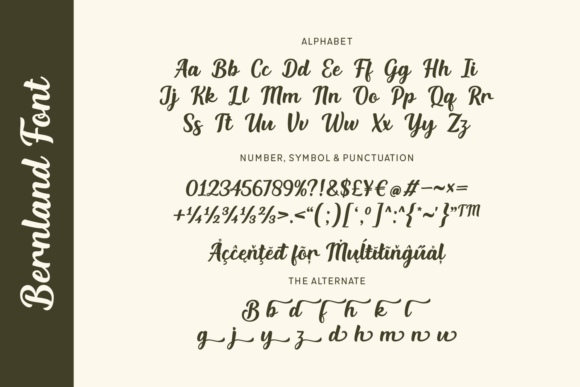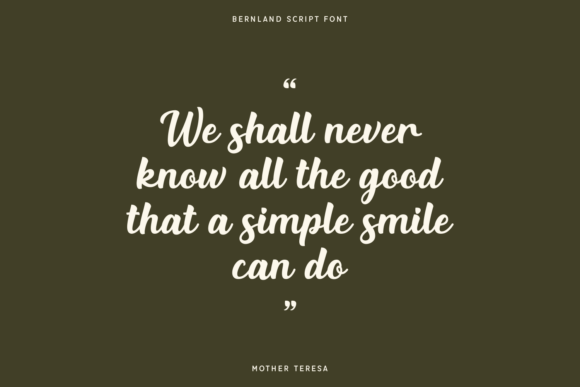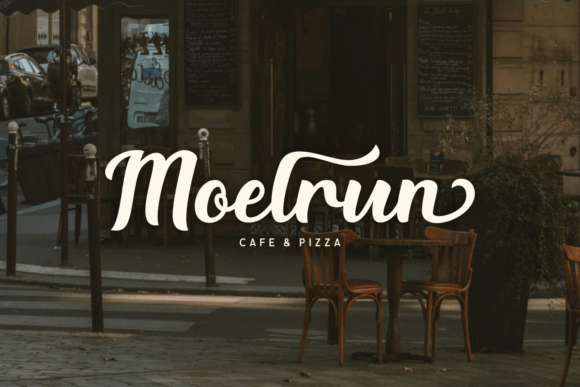
Bernland Font: Elevate Your Designs with Modern Elegance
In the world of typography, fonts play a crucial role in defining the aesthetic and tone of a design project. For designers and crafters seeking a modern, sophisticated look, the Bernland font stands out as an exceptional choice. This modern script font, characterized by its bold curves and smooth swashes, offers a clean yet elegant appearance that can instantly elevate your projects.
The Essence of Bernland Font
Bernland is not just another script font; it’s a versatile typeface designed to bring a contemporary touch to various design applications. Its stylish design, marked by bold curves and fluid swashes, gives it a unique personality that is both eye-catching and refined. Whether you’re working on logos, branding, packaging, or headlines, Bernland provides the perfect blend of modernity and elegance.
Ideal Applications for Bernland Font
The versatility of Bernland makes it suitable for a wide range of design projects. Here are some areas where Bernland truly shines:
- Logos and Branding: Create a lasting impression with a logo that exudes modern sophistication. Bernland’s unique curves and swashes can help your brand stand out in a crowded marketplace.
- Packaging: Add a touch of elegance to your product packaging. Bernland’s clean and sophisticated look can enhance the visual appeal of your products, making them more attractive to potential customers.
- Headlines and Titles: Whether for print or digital media, Bernland can add a compelling flair to your headlines and titles, drawing readers’ attention and adding a professional touch to your content.
- Social Media Graphics: Elevate your social media presence with graphics that look modern and polished. Bernland is perfect for creating engaging and stylish social media posts, stories, and banners.
- Posters and Invitations: For events, promotions, or personal occasions, Bernland can help you create visually stunning posters and invitations that are sure to impress.
Why Choose Bernland Font?
Bernland offers several advantages that make it a preferred choice among designers:
- Contemporary Design: Its modern script style ensures that your designs look current and appealing.
- Elegance and Sophistication: Bernland adds a level of sophistication to your projects, making them suitable for high-end brands and personal projects alike.
- Versatility: It can be used across various platforms and design applications, from print to digital.
- Eye-Catching: The bold curves and smooth swashes of Bernland make it highly noticeable, ensuring your designs capture the audience’s attention.
Tips for Using Bernland Font Effectively
To maximize the impact of Bernland in your designs, consider the following tips:
- Pair with Complementary Fonts: For body text or additional headings, pair Bernland with clean, sans-serif fonts to create contrast and enhance readability.
- Adjust Swashes: Customize the swashes to fit the tone of your project. You can use them sparingly for a subtle effect or extensively for a more dramatic look.
- Experiment with Colors: While Bernland looks great in bold colors, experimenting with gradients or metallic effects can add another layer of sophistication.
- Consider Size and Weight: For headlines, use the boldest weights of Bernland. For body text or finer details, opt for lighter weights to maintain clarity.
Bernland font is a powerful tool for designers and crafters aiming to infuse their projects with a modern, elegant vibe. Its bold curves, smooth swashes, and versatile nature make it an excellent choice for a wide range of applications, from logos and branding to digital graphics and print materials. By incorporating Bernland into your design repertoire, you can create visually stunning and impactful projects that stand out in any context. Whether you’re a professional designer or a DIY enthusiast, Bernland is sure to elevate your designs to new heights.